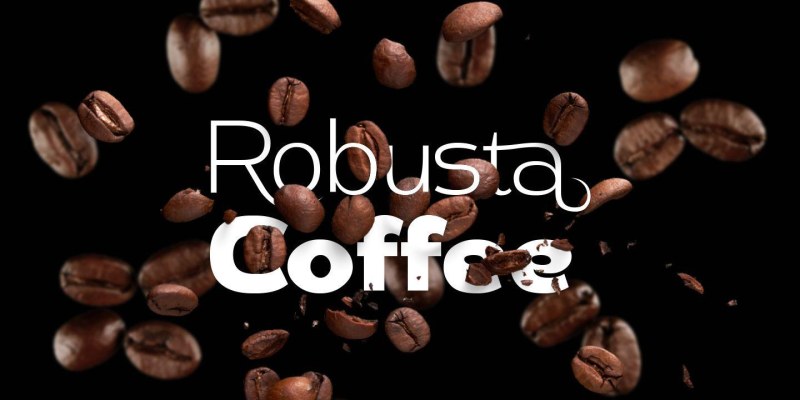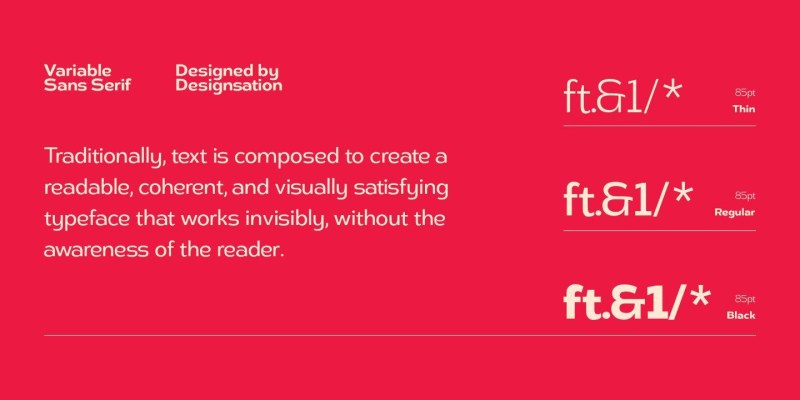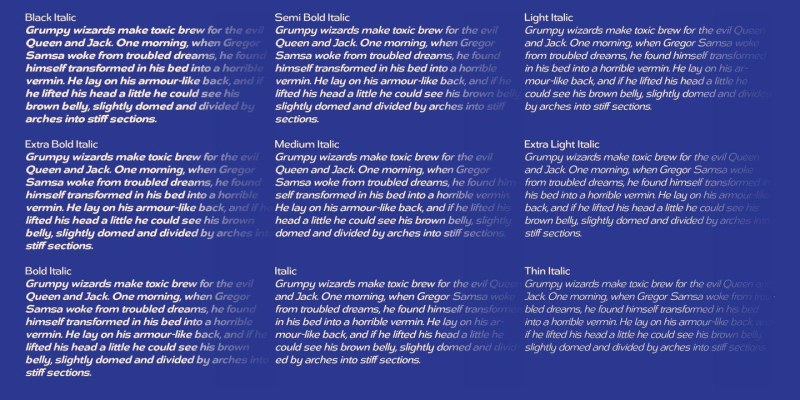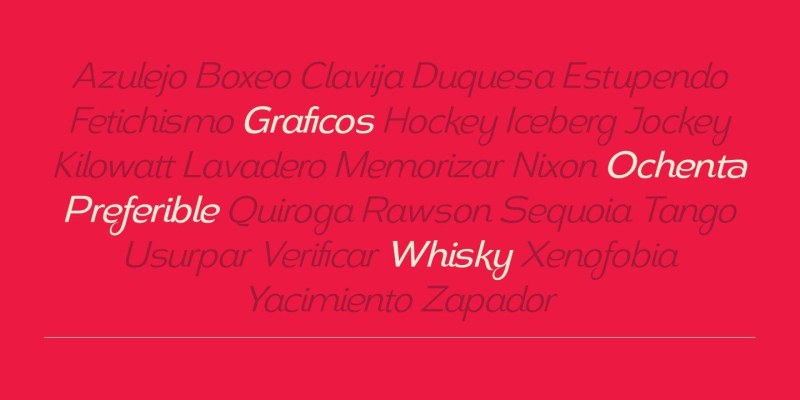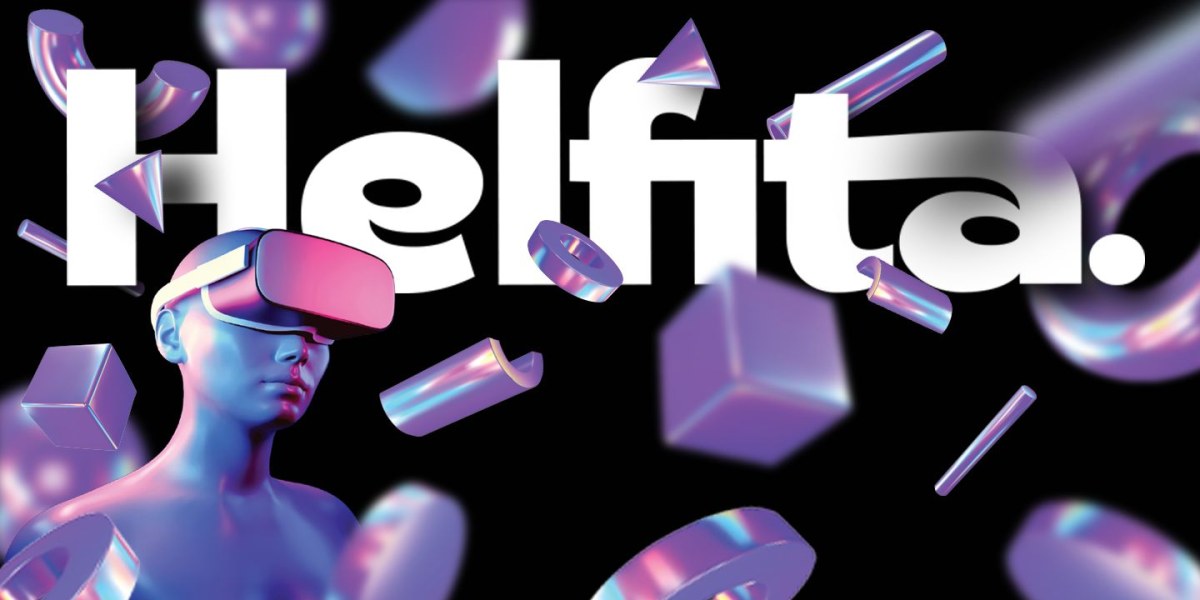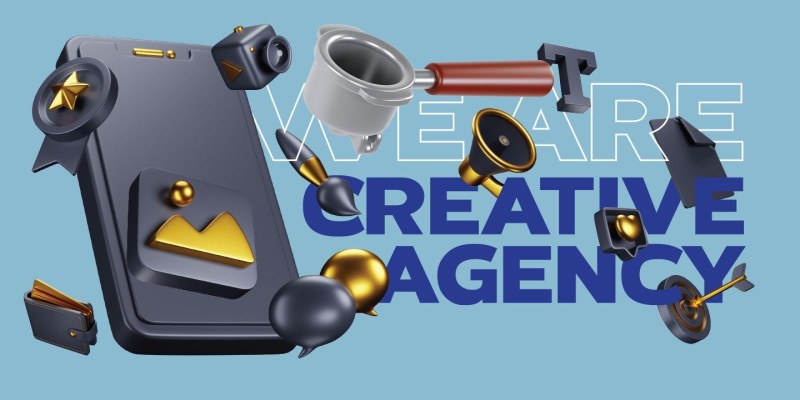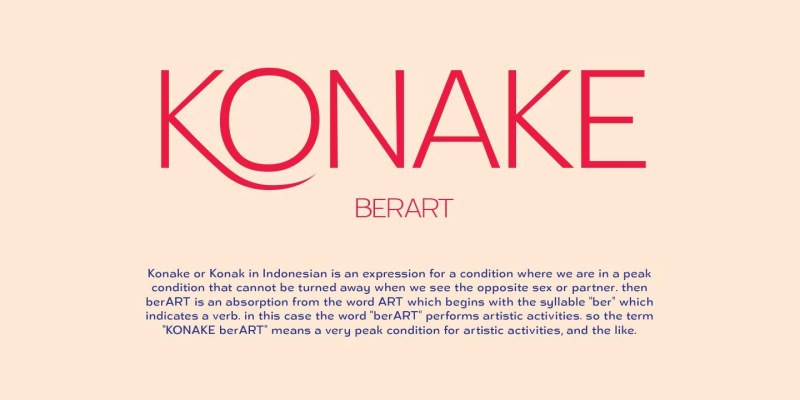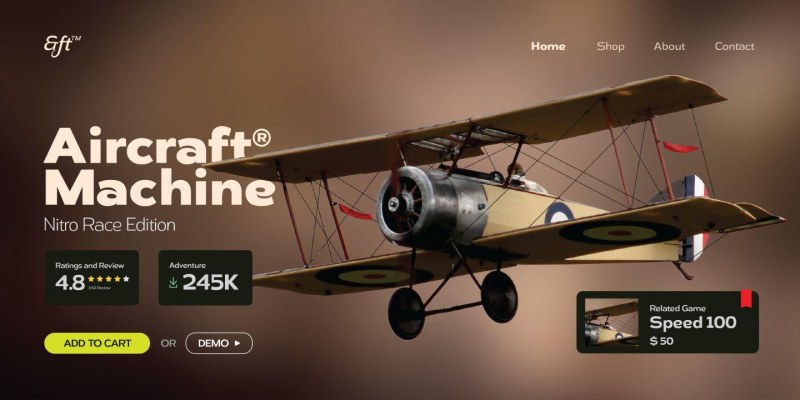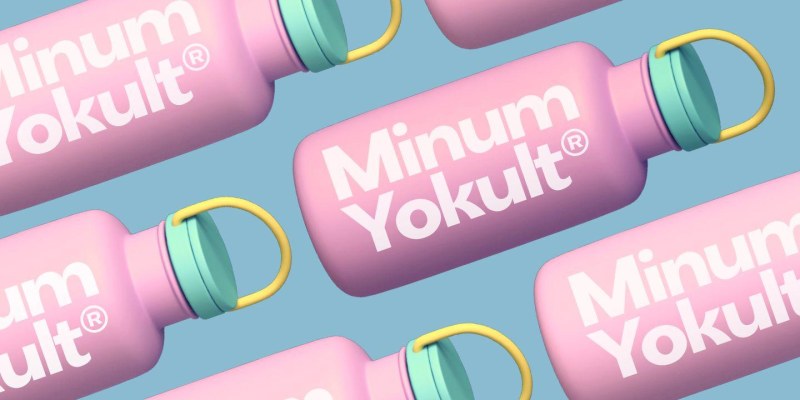
DST Helfita Font Family
This first font was made as an experimental work for us. Learn a alot of typeform from other typeface in the past, bring us to this grace position. We learn about Variable font and all the thing to do some improvement in our work. Such a nice time to present this new font to the world as the ground breaking of our mission to scale up our skill and to step up into the next vision as a font designer. We create this font with variable and Open Type features. Some instances including, from thin to black. and on the variable font has and oblique style.